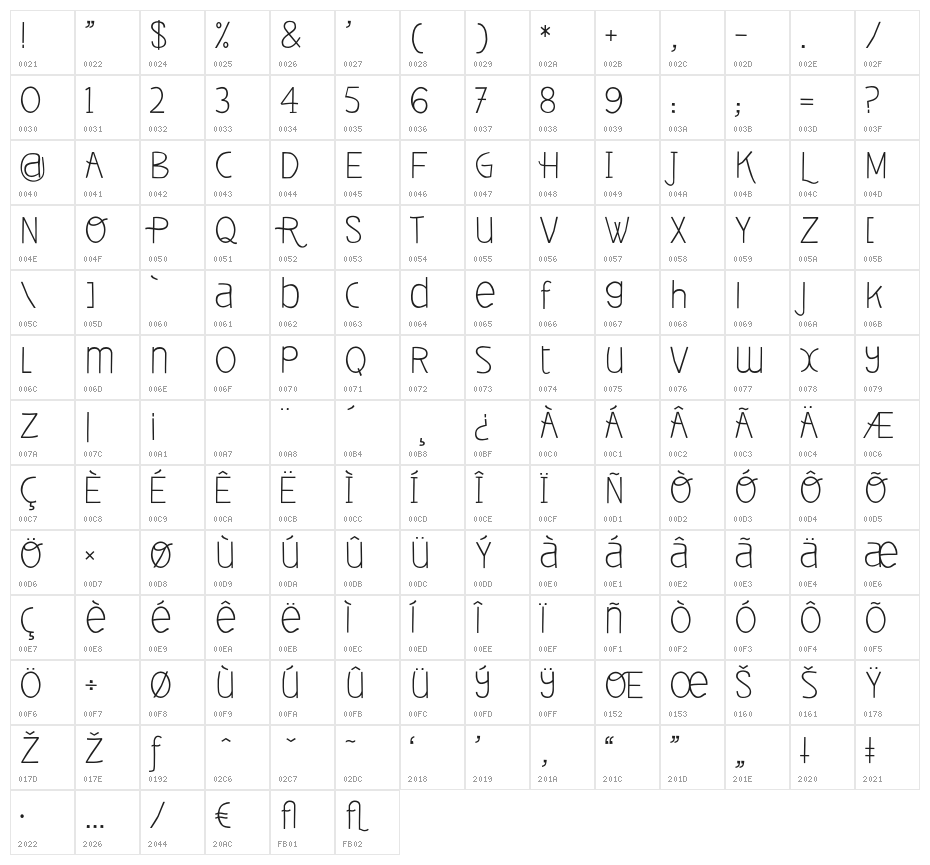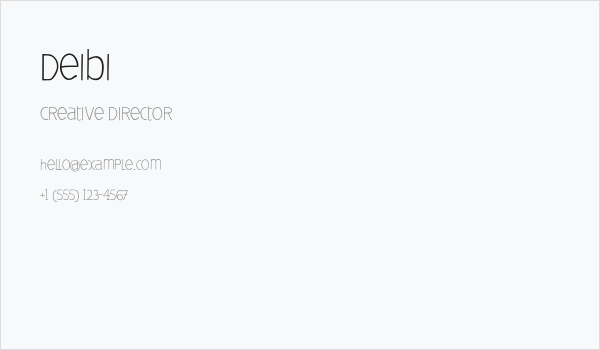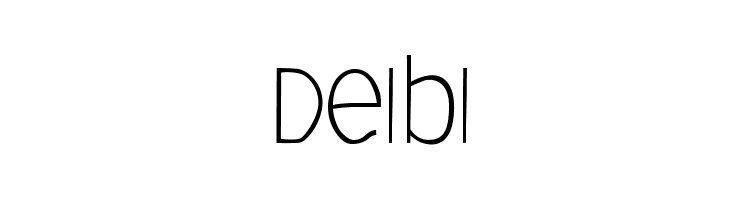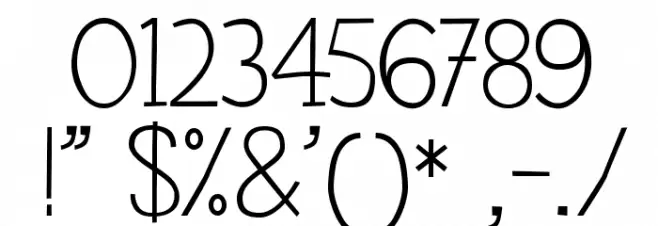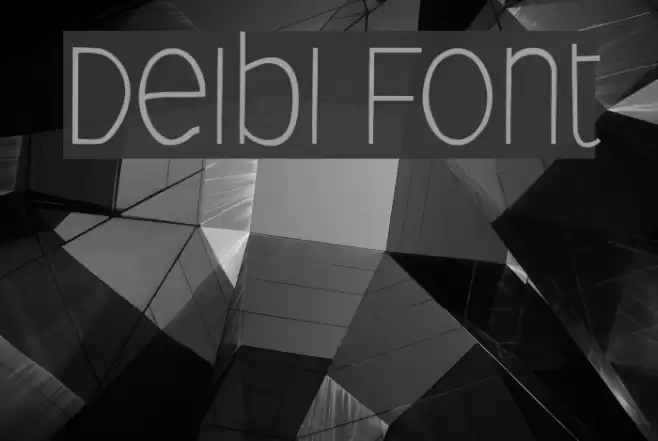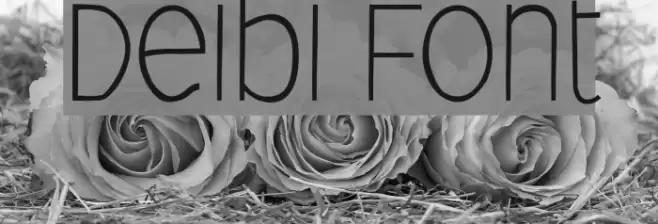
Deibi Font
Deibi Description
This font features a unique and playful design with a modern twist. The characters are slender and elongated, giving them an elegant appearance. The uppercase letters have a distinctive angularity, while the lowercase letters maintain a consistent roundness. The numerals are clean and straightforward, complementing the overall style. The special characters are creatively designed, adding to the font's charm. This font's quirky yet sophisticated look makes it suitable for a variety of creative projects.
| Use Case | Logos, Headlines, Posters |
| Proposed Projects | Ideal for branding, posters, invitations, and creative digital content. |